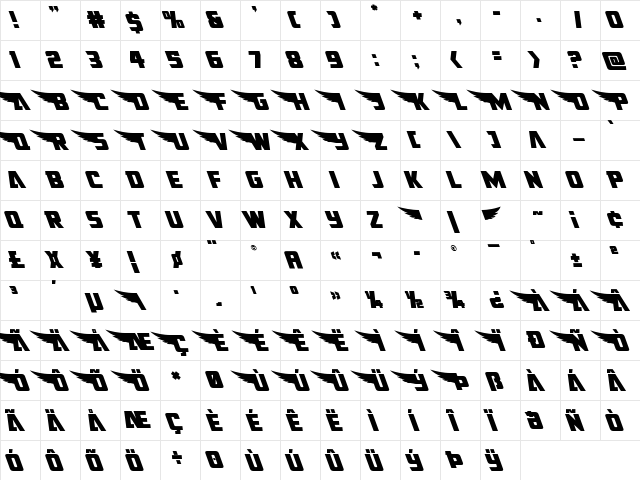
American Kestrel Leftalic Italic
Design Context for American Kestrel Leftalic Typeface
American Kestrel Leftalic is a composed and adaptable typeface that performs quietly and consistently across a wide range of design contexts. The slanted form adds forward momentum and visual energy.
Pro Tip: Try American Kestrel Leftalic for annotation and caption copy alongside an upright companion — the contrast in angle creates a dynamic but ordered typographic system.